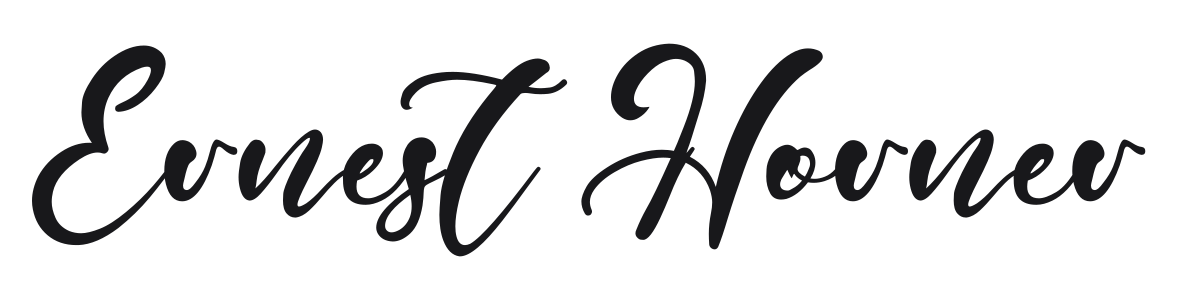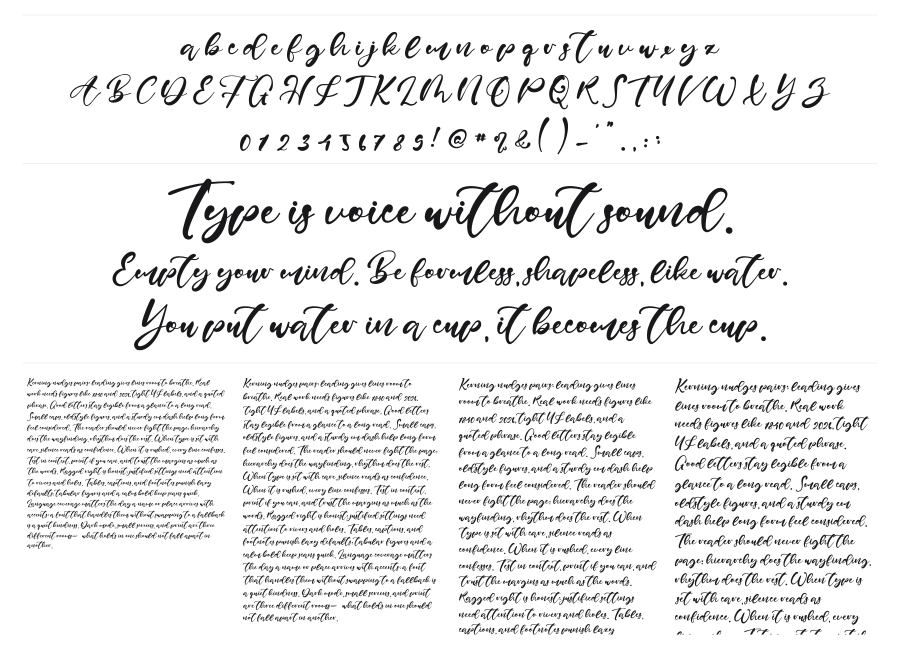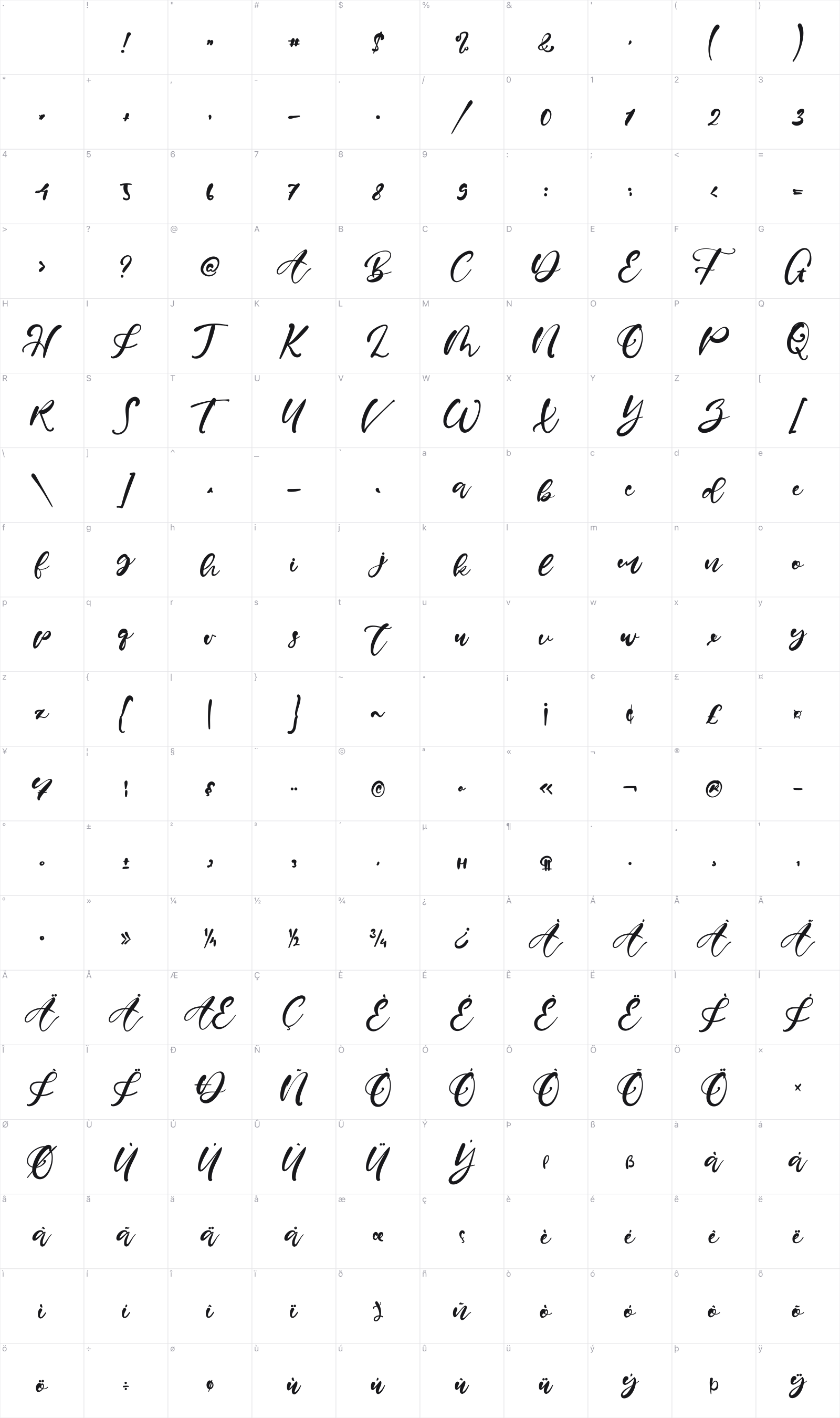
Ernest Horner
by Vztype Studio
Ernest Horner is a contemporary brush script with sweeping thick-thin strokes and lively, looping connections between letters. The bouncy baseline and expressive flourishes on ascenders and descenders give it the feel of confident hand-lettering. It reads naturally at large sizes in logos, wedding stationery, packaging, and lifestyle branding.